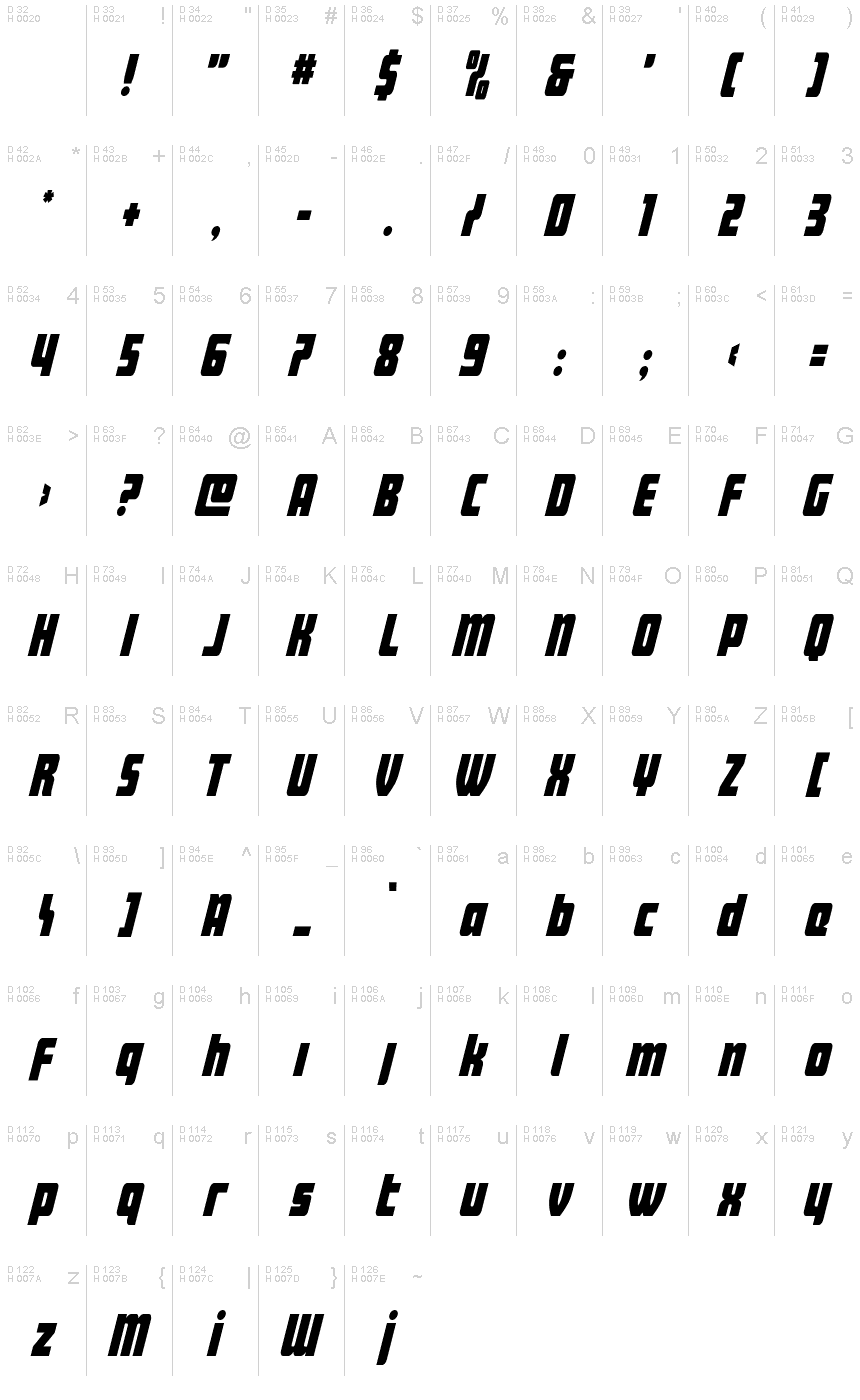
Intrepid Spear LC Condens Ital
Intrepid Spear LC Condens Italic, a distinctive member of the Intrepid Spear font family crafted by Iconian Fonts, makes a bold statement in the realm of techno typefaces. This display font is characterized by its condensed width and italicized stance, giving it a dynamic edge that is both assertive and forward-moving.
The robust weight of Intrepid Spear LC Condens Italic commands attention, while the sleek lines and sharp angles embody an aesthetic that is both modern and sophisticated. Its condensed nature allows for impactful headlines and eye-catching slogans without occupying excessive space, making it an excellent choice for designers looking to maximize visual impact in limited layouts.
Whether used in branding, poster design, or digital media, this font's techno style exudes a sense of innovation and precision. The versatility offered by the Intrepid Spear family's Regular and Lower Case sub-families ensures that designers have ample creative flexibility to experiment with hierarchy and emphasis.
In essence, Intrepid Spear LC Condens Italic stands as a testament to cutting-edge typography where form meets function—a perfect fit for projects that require a touch of futurism with unyielding boldness.
The robust weight of Intrepid Spear LC Condens Italic commands attention, while the sleek lines and sharp angles embody an aesthetic that is both modern and sophisticated. Its condensed nature allows for impactful headlines and eye-catching slogans without occupying excessive space, making it an excellent choice for designers looking to maximize visual impact in limited layouts.
Whether used in branding, poster design, or digital media, this font's techno style exudes a sense of innovation and precision. The versatility offered by the Intrepid Spear family's Regular and Lower Case sub-families ensures that designers have ample creative flexibility to experiment with hierarchy and emphasis.
In essence, Intrepid Spear LC Condens Italic stands as a testament to cutting-edge typography where form meets function—a perfect fit for projects that require a touch of futurism with unyielding boldness.